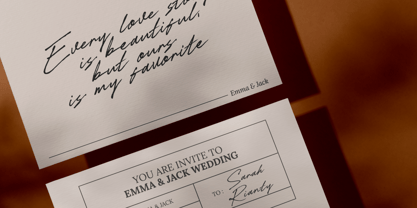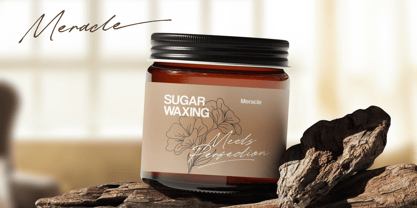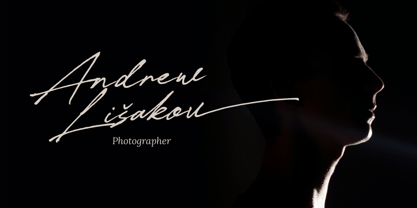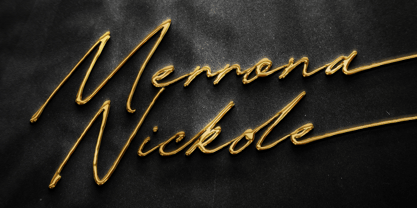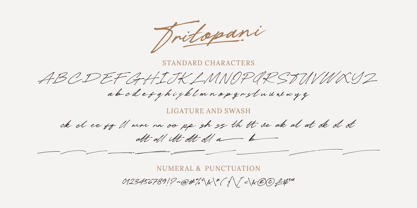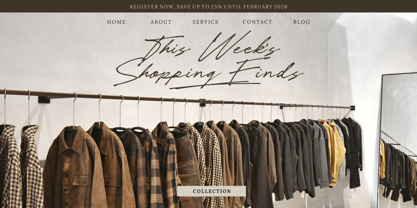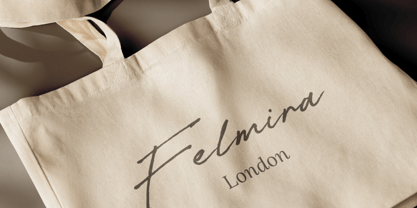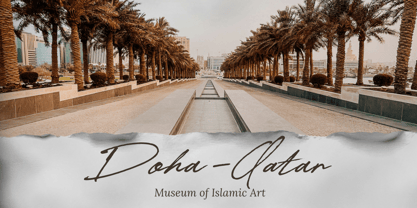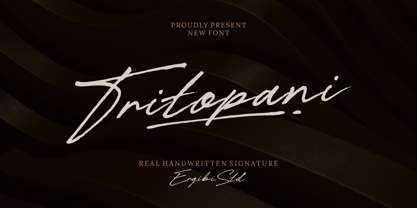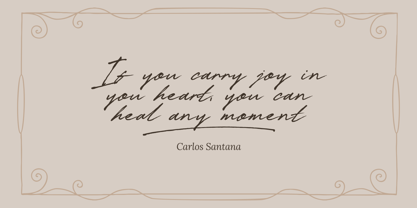
Tritopani
Die Schriftfamilie Tritopani wurde von Riyadh Rahman entworfen und von Ergibi Studio veröffentlicht. Tritopani enthält 1 Stile. Mehr über diese Familie
Tritopani is a real handwritten signature font born from the simple joy of putting pen to paper. It reflects the natural rhythm, subtle imperfections, and easy flow of a genuine signature—unplanned, relaxed, and full of character. Every letter feels personal, as if it was written in a single breath. It’s a great choice for personal branding, signature-style logos, photography watermarks, wedding stationery, quotes, and social media designs that call for a truly human touch. If there is a problem, question, or anything about my fonts, don't hesitate to ask! Ergibi Studio